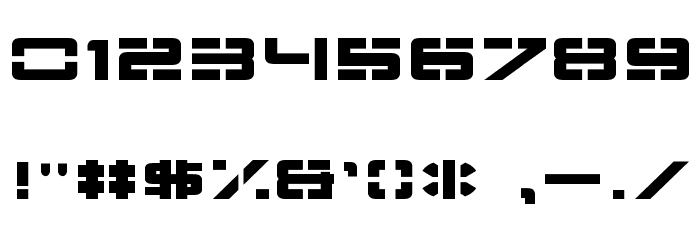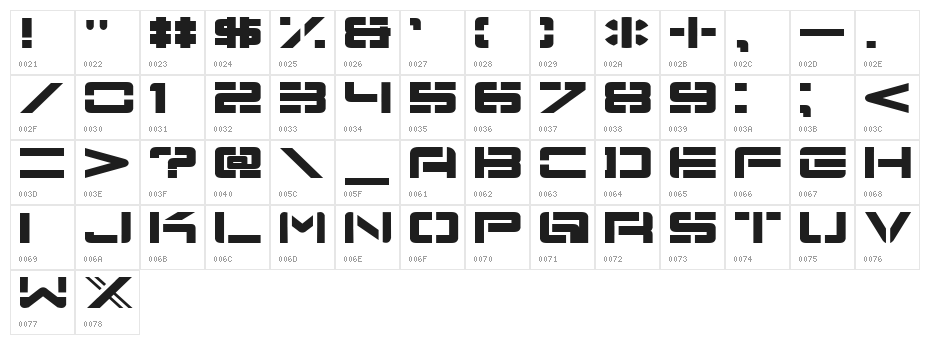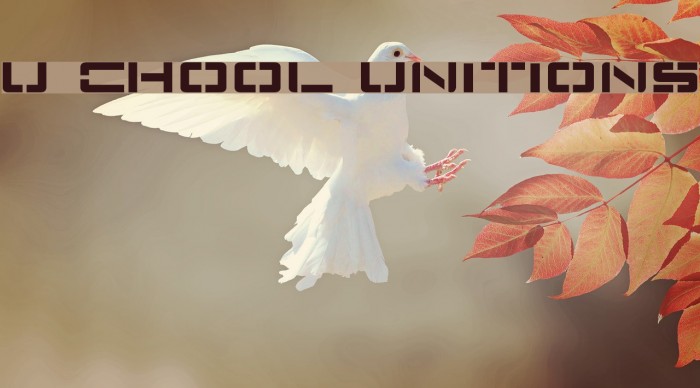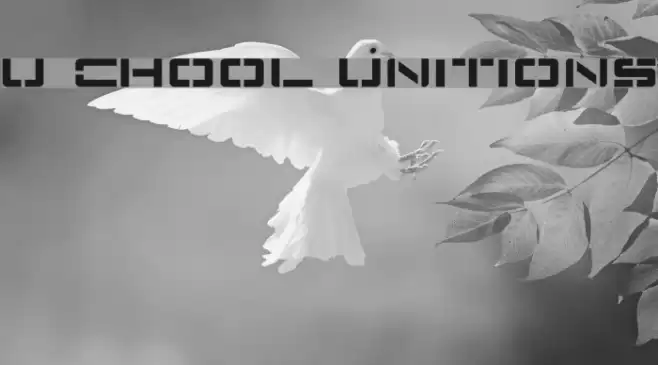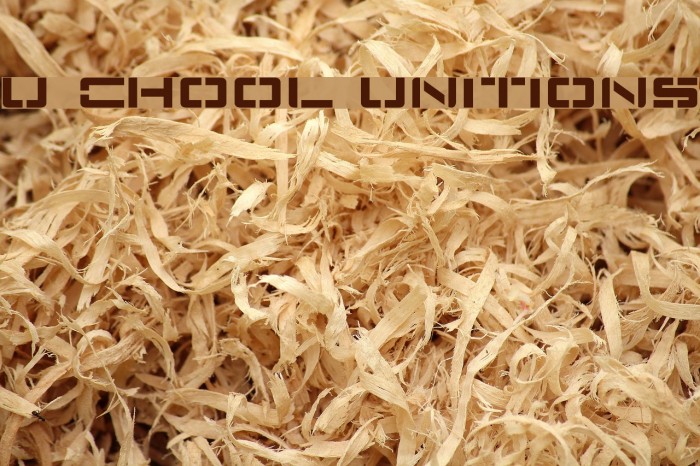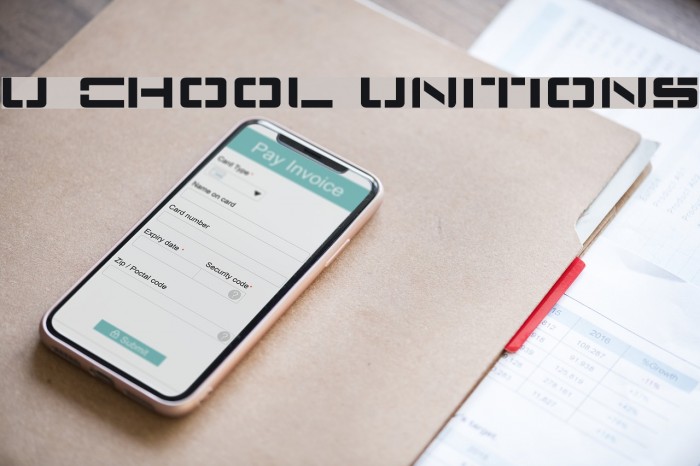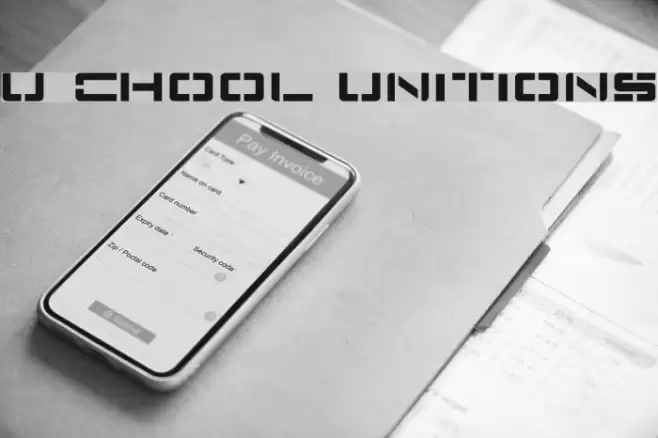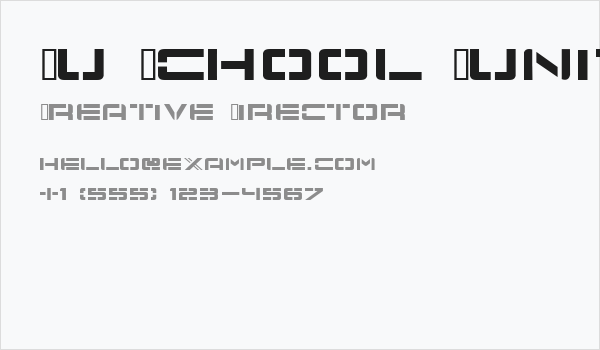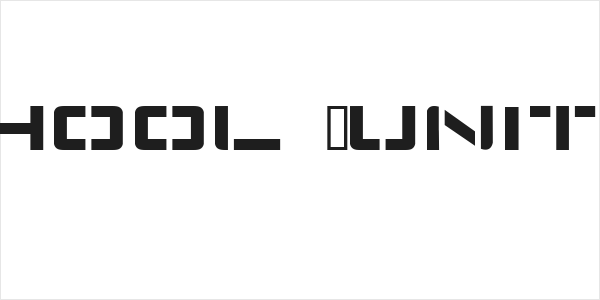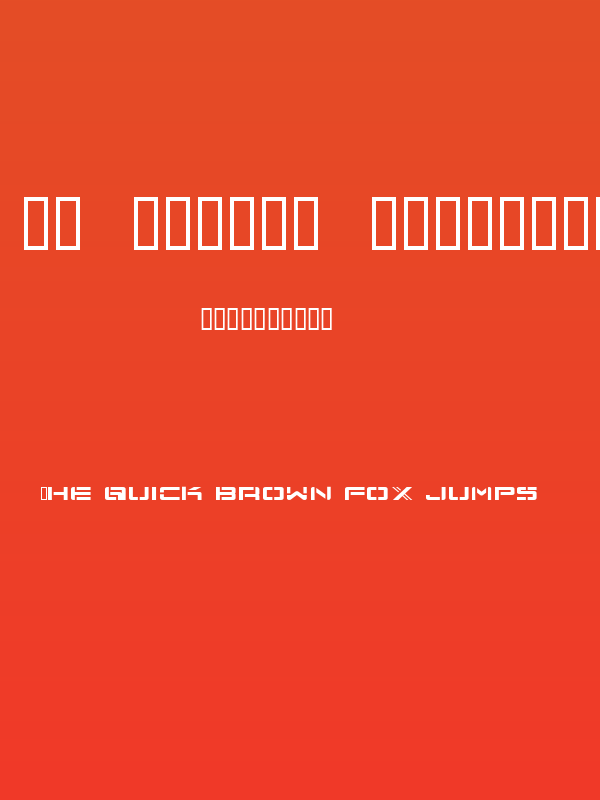
Nu School Munitions Font
Nu School Munitions Description
This font features a bold and futuristic design with a strong geometric influence. The characters are constructed with sharp angles and straight lines, creating a sense of modernity and innovation. The uppercase letters are particularly striking, with unique cuts and shapes that give them a distinctive, almost industrial feel. The numerals and special characters maintain this aesthetic, ensuring consistency across all glyphs. This font is ideal for projects that require a contemporary and edgy look, such as technology branding, video game titles, or sci-fi themed designs.